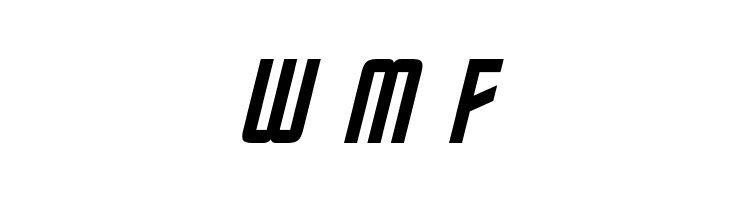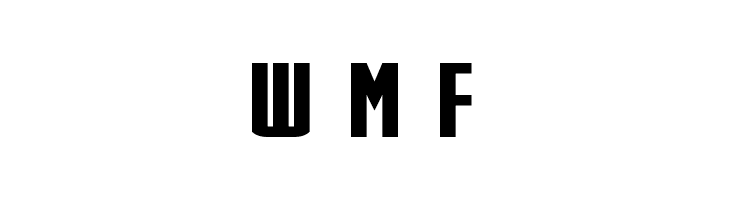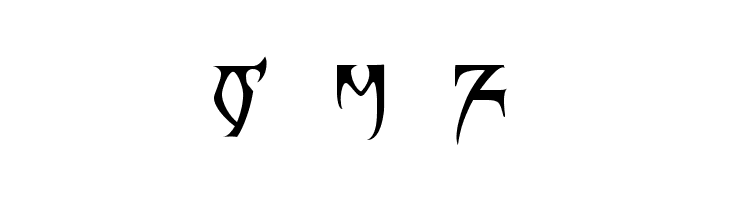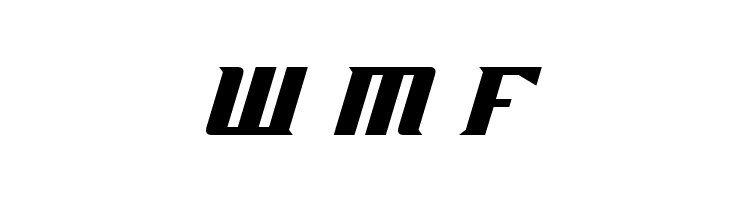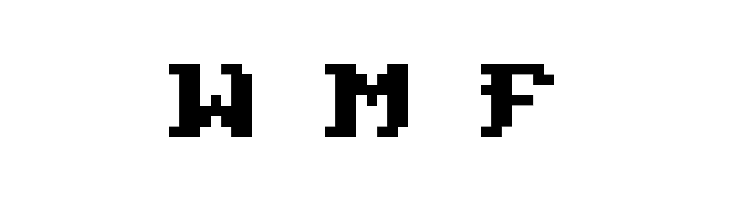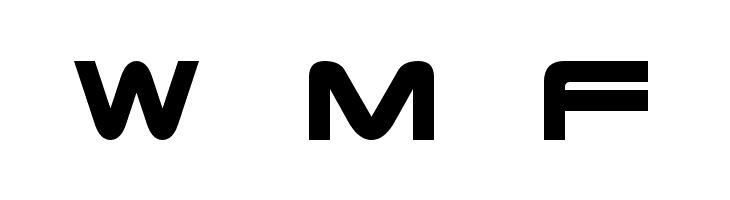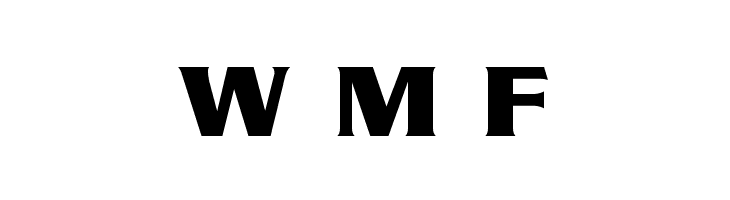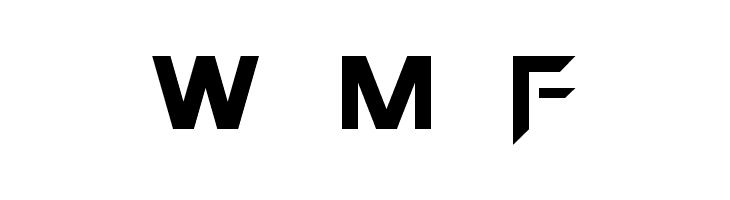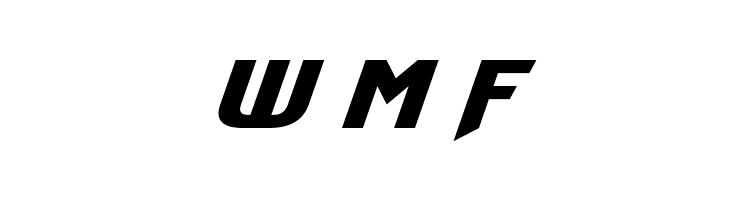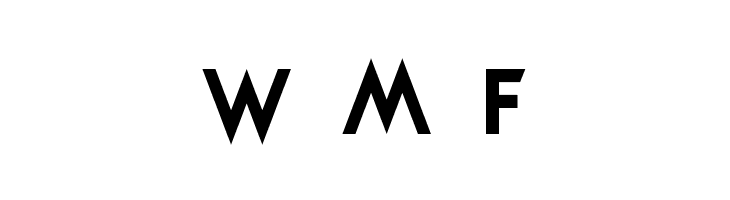
• Nakadai Oblique
A modern, oblique font with a bold, geometric style and tight spacing.
• Steampuff
A bold, decorative font with steampunk-inspired gear embellishments.
• Carlton
A modern, geometric font with a condensed and uniform appearance.
• Sierra Madre
A bold, geometric font with art deco influences, featuring sharp, angular letterforms.
• Kanno
A bold, geometric font with a modern and structured design.
• Ophidian
A decorative, serpentine font with bold, flowing curves.
• Roddenberry Oblique
A bold, oblique font with a futuristic and dynamic style.
• Resavy
A bold, geometric font with high contrast and unique cutout designs.
• Arneson
A bold, Gothic-inspired font with sharp angles and pointed serifs.
• Stark
A bold, modern font with thick, block-like characters.
• TrekArrowheads
A collection of sci-fi inspired arrowhead symbols for decorative use.
• Pacmania
A bold, geometric display font with a retro arcade-inspired style.
• Roughknight
A bold, industrial-style font with mechanical elements and decorative cutouts.
• Jumpman
A bold, playful font with a retro-modern appeal and unique star symbols.
• Omnicron
A bold, geometric font with a futuristic and tech-inspired design.
• Daedra
A bold, angular, and mystical font with sharp edges and high contrast.
• Zarathos Oblique
A bold, angular, and oblique font with a dynamic and energetic style.
• Neostar
A futuristic, geometric font with bold, angular shapes and clean lines.
• Diamond Fantasy